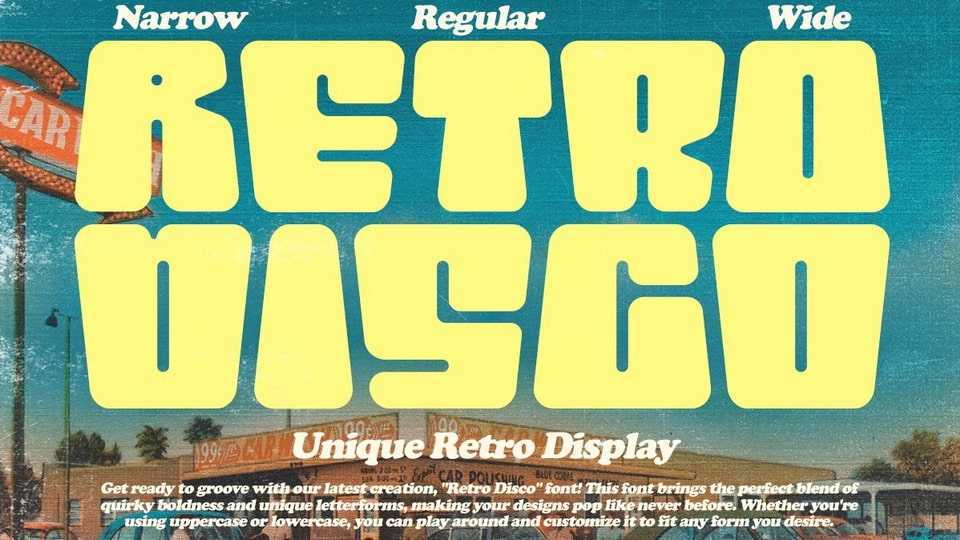
Download Retro Disco font, a display typeface that brings the perfect blend of quirky boldness and unique letterforms, adding a dash of playfulness to your designs.